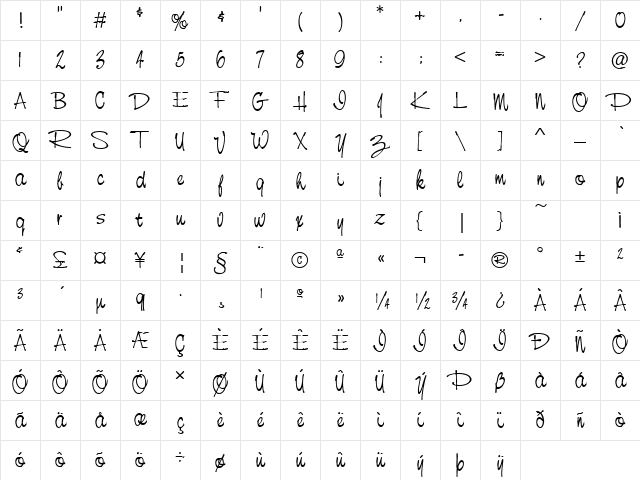
NevisonCasJoiD Regular
Design Context for NevisonCasJoiD
NevisonCasJoiD is a composed and adaptable typeface that performs quietly and consistently across a wide range of design contexts.